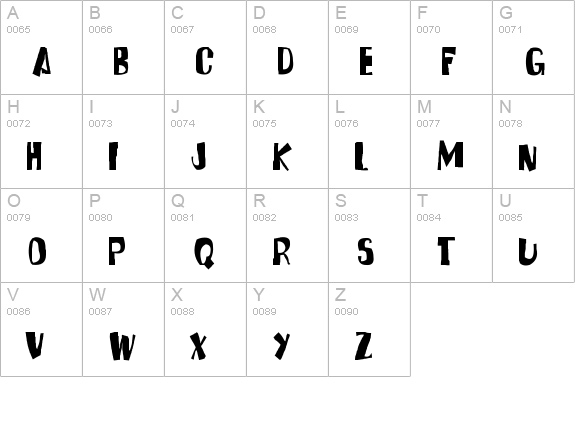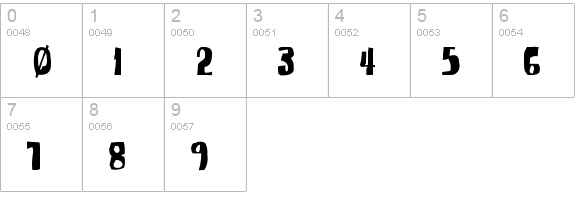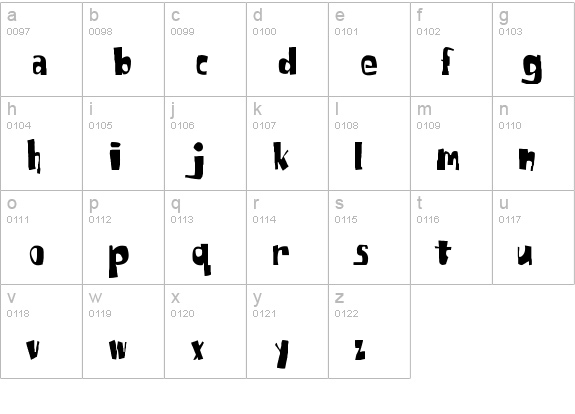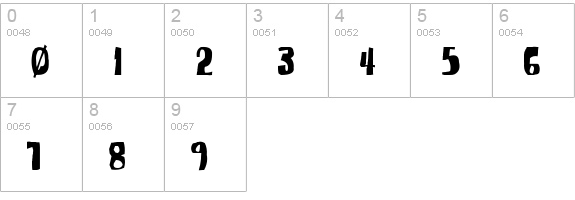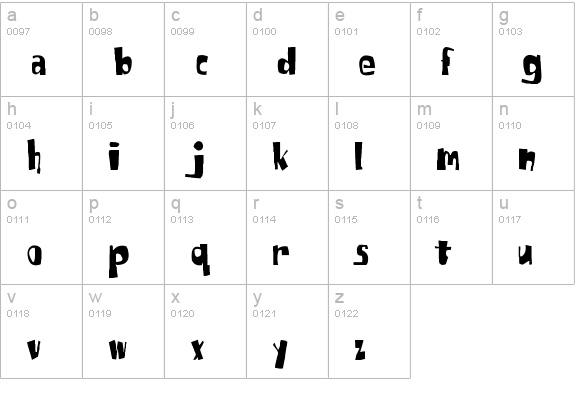
SpongeFont SquareType Font Details
Introducing SpongeFont SquareType, a delightful and whimsical font that is sure to bring a touch of fun and playfulness to your designs. With its bold and quirky letterforms, this font captures the essence of everyone's favorite sponge and his underwater adventures. SpongeFont SquareType is not only visually appealing, but it also offers a seamless reading experience. The carefully crafted letter shapes ensure excellent legibility, making it suitable for a wide range of design projects, from playful children's books to eye-catching posters and everything in between. One of the best things about SpongeFont SquareType is that it is absolutely free! Yes, you read it right - this amazing font can be downloaded at no cost from FontsMarket.com. Its creators believe that great design should be accessible to all, and they have made it a point to generously share this font with the design community. Whether you are a professional designer or a hobbyist, SpongeFont SquareType is a must-have in your font collection. Its versatility and unique charm make it a perfect choice for a variety of projects. So why wait? Head over to FontsMarket.com and grab your free download of SpongeFont SquareType today!